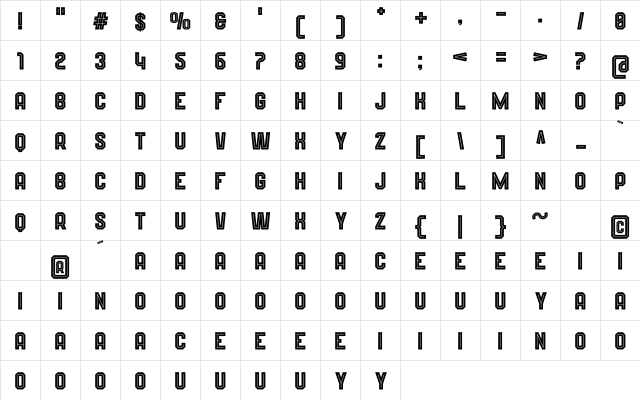
Wynford Line Regular
Design Context for Wynford Line Typeface
Wynford Line offers clean, dependable letterforms without strong stylistic allegiance, making it a practical choice for designers who need flexibility.